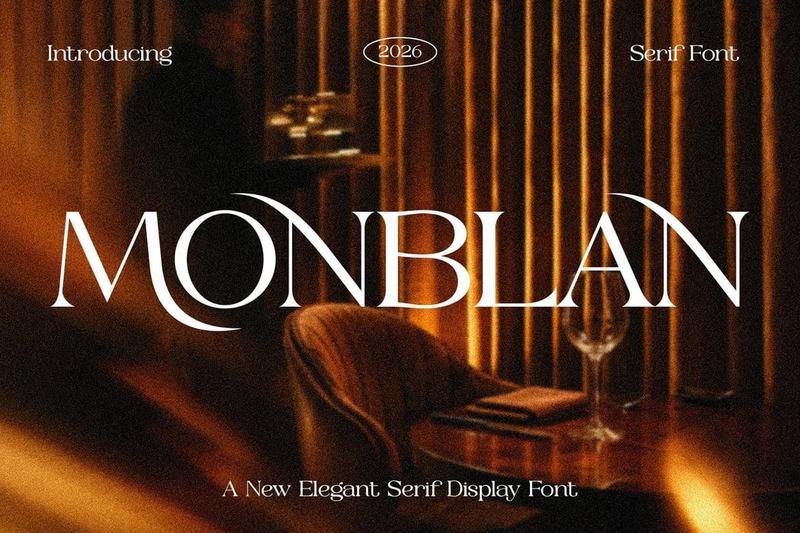
Monblan – Elegant Serif Typeface XZHB4FM
Introducing **Monblan** the elegant, beautiful, and modern Serif. With its modern and minimalist look, Monblan brings a luxurious, classy, and clean style to your projects such as websites, modern logos, brand identities, social media quotes, wedding stationery, magazines, and more!
Monblan features unique and classy capital letters A to Z and also comes with unique alternates and ligatures making Monblan a beautiful font that can be customized for various projects and jobs you want.
Monblan is perfect for: logos, brands, wedding invitations, business cards, greeting cards, posters, magazines, social media, agenda prints, and websites.